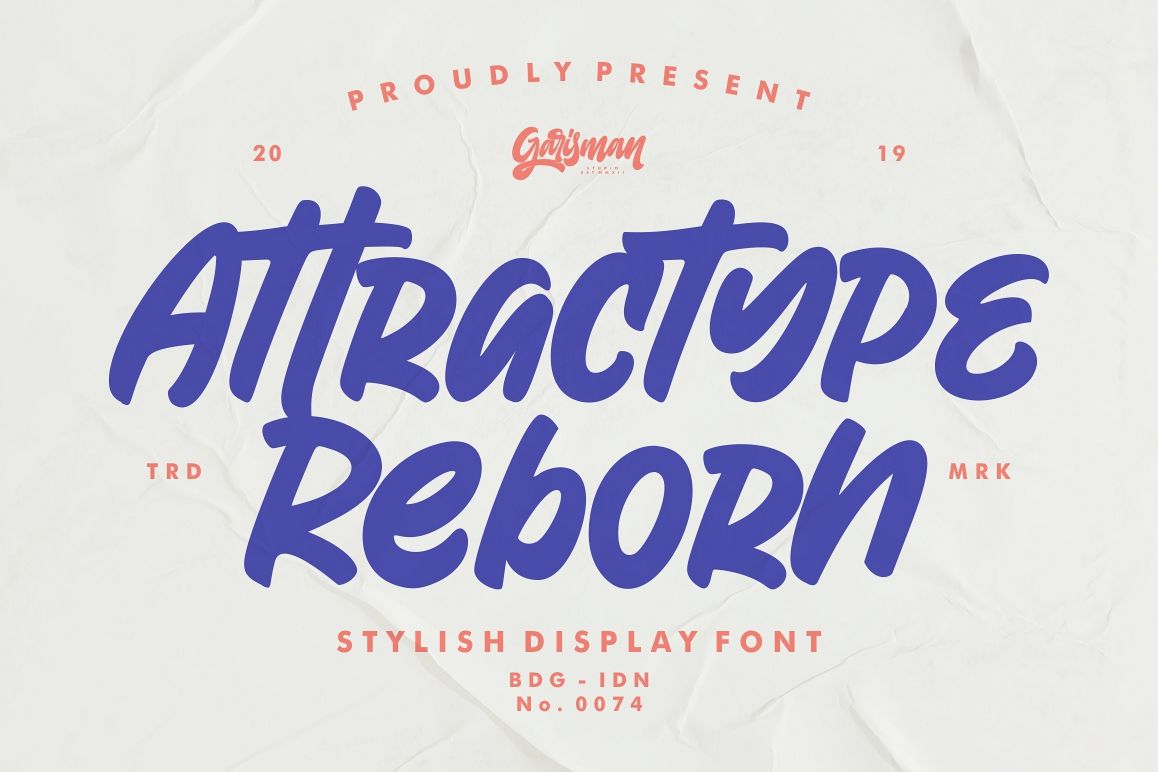
Attractype Reborn - Stylish Display Font
Attractype Reborn
Introducing Attractype Reborn - Stylish Display Font
Attractype Reborn combines attractive curves with a fresh urban edge; delivering a stylish script which is guaranteed to add an eye-catching appeal to your logo designs, brand imagery, quotes, product packaging, merchandise & social media posts
- Uppercase & Lowercase letters
- Numbers & Punctuation